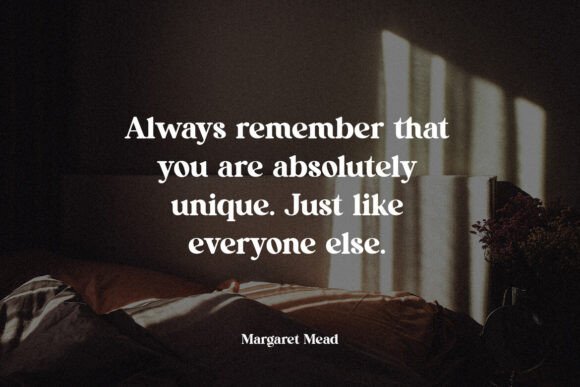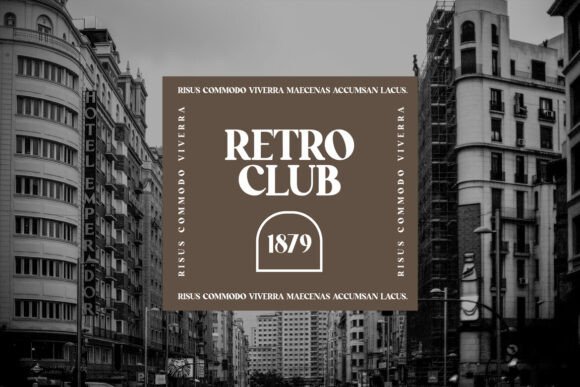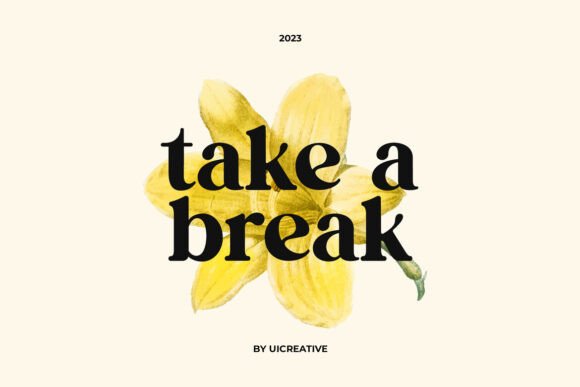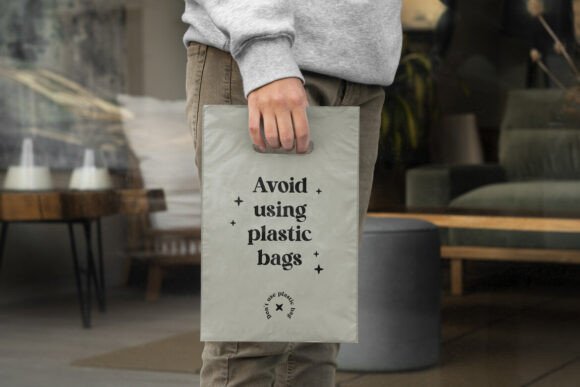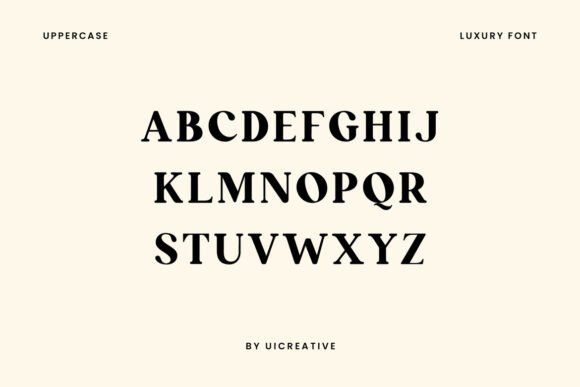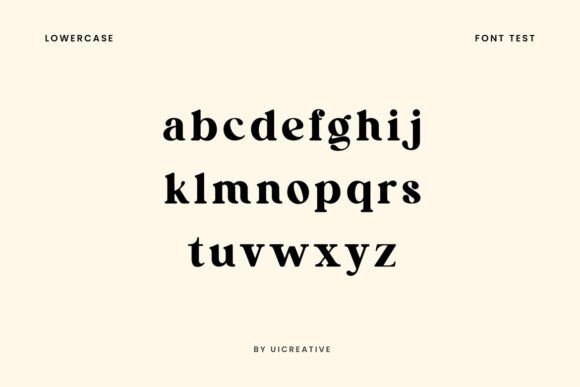
Introduction to Anthelion Font
Anthelion Retro Serif Font.
This font feels beautiful classy, elegant, and stylish This font is ideally suited for a wide variety of projects, such as signature, stationery, logo, wedding, typography quotes, magazine or book covers, website headers, branding, and more.